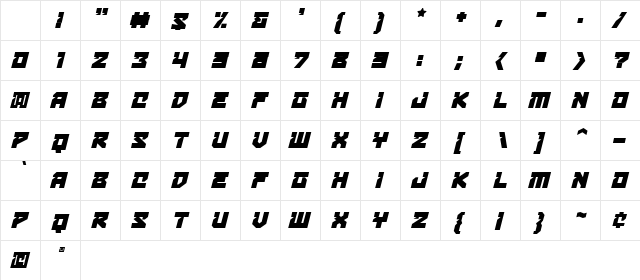
Complete Bulletproof Deco BB Italic glyph index. Displaying only characters natively supported by Bulletproof Deco BB Italic font.
Bulletproof Deco BB is a composed and adaptable typeface that performs quietly and consistently across a wide range of design contexts. The slanted form adds forward momentum and visual energy.